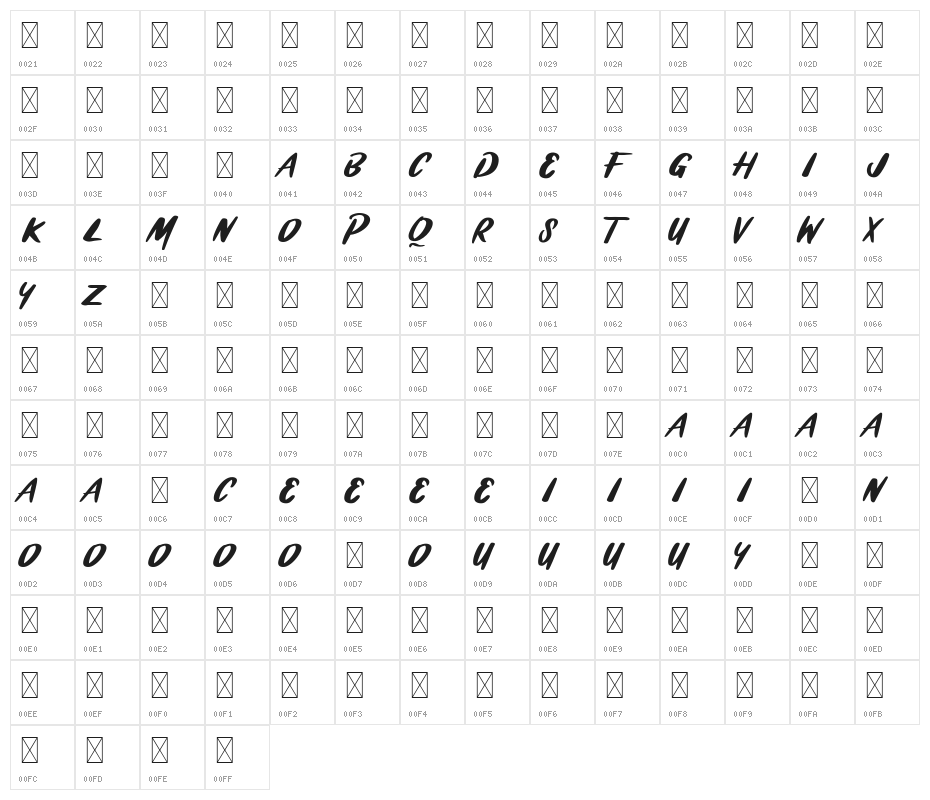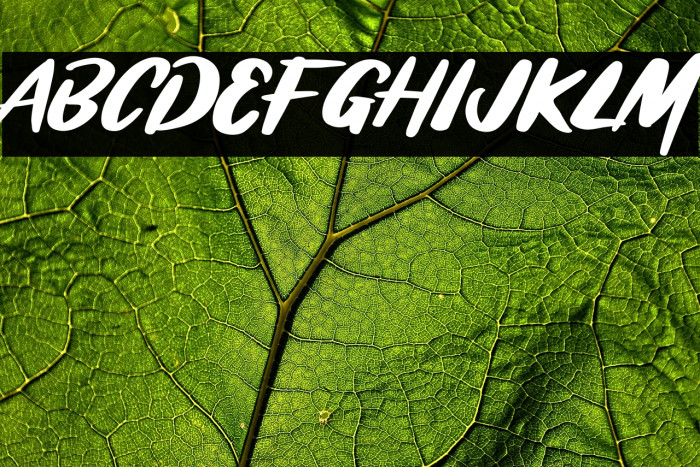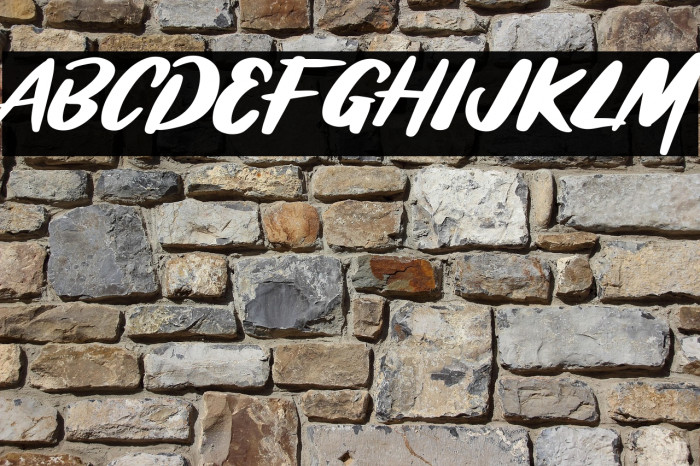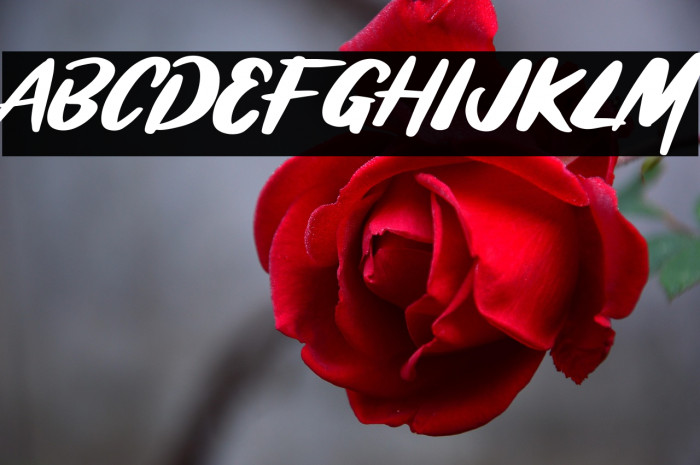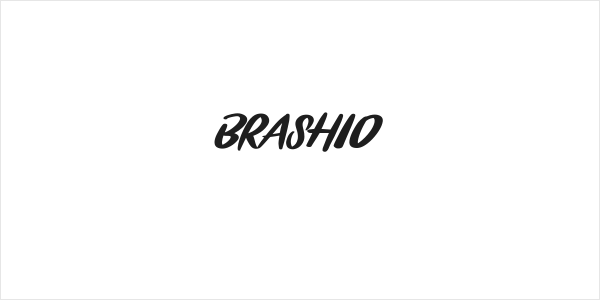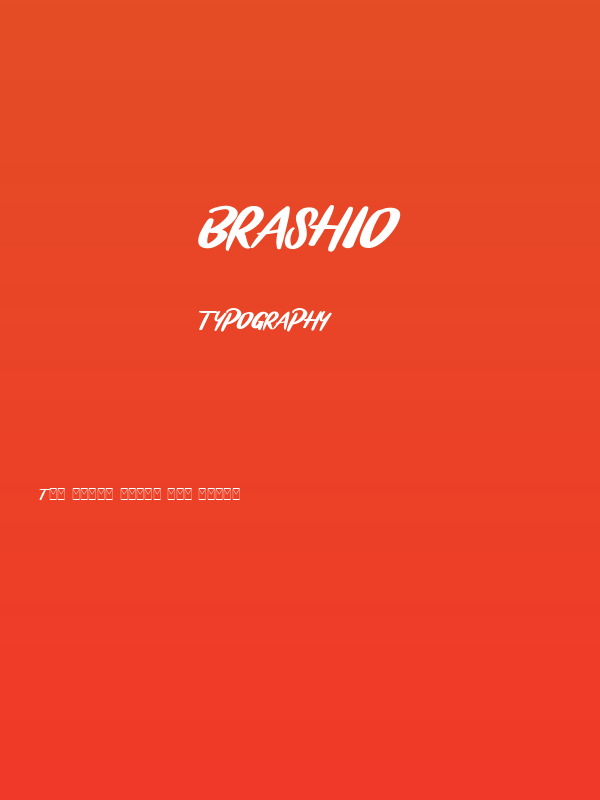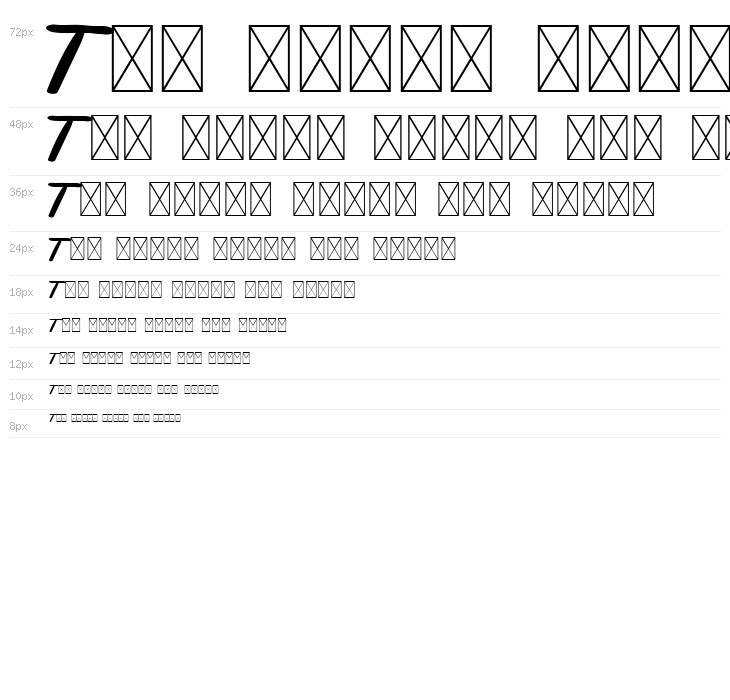
BRASHIO Font
BRASHIO Description
This font features a bold and dynamic script style with a strong presence. The uppercase letters are characterized by their fluid, sweeping strokes and a sense of motion, giving them an energetic and expressive appearance. The letters are slightly slanted, adding to the dynamic feel. The strokes are thick and consistent, providing a bold look that stands out. The overall design is modern and stylish, making it suitable for projects that require a touch of flair and creativity. The font's unique style makes it ideal for headlines, branding, and promotional materials where a strong visual impact is desired.
| Use Case | Headlines, Logos, Branding |
| Proposed Projects | Ideal for branding, headlines, promotional materials, and creative projects requiring a bold statement. |